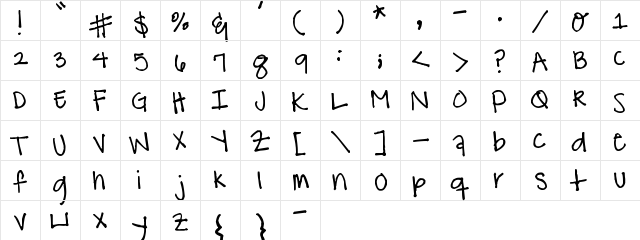
Pea Alyssa Regular
Design Context for Pea Alyssa Typeface
Pea Alyssa is a composed and adaptable typeface that performs quietly and consistently across a wide range of design contexts.